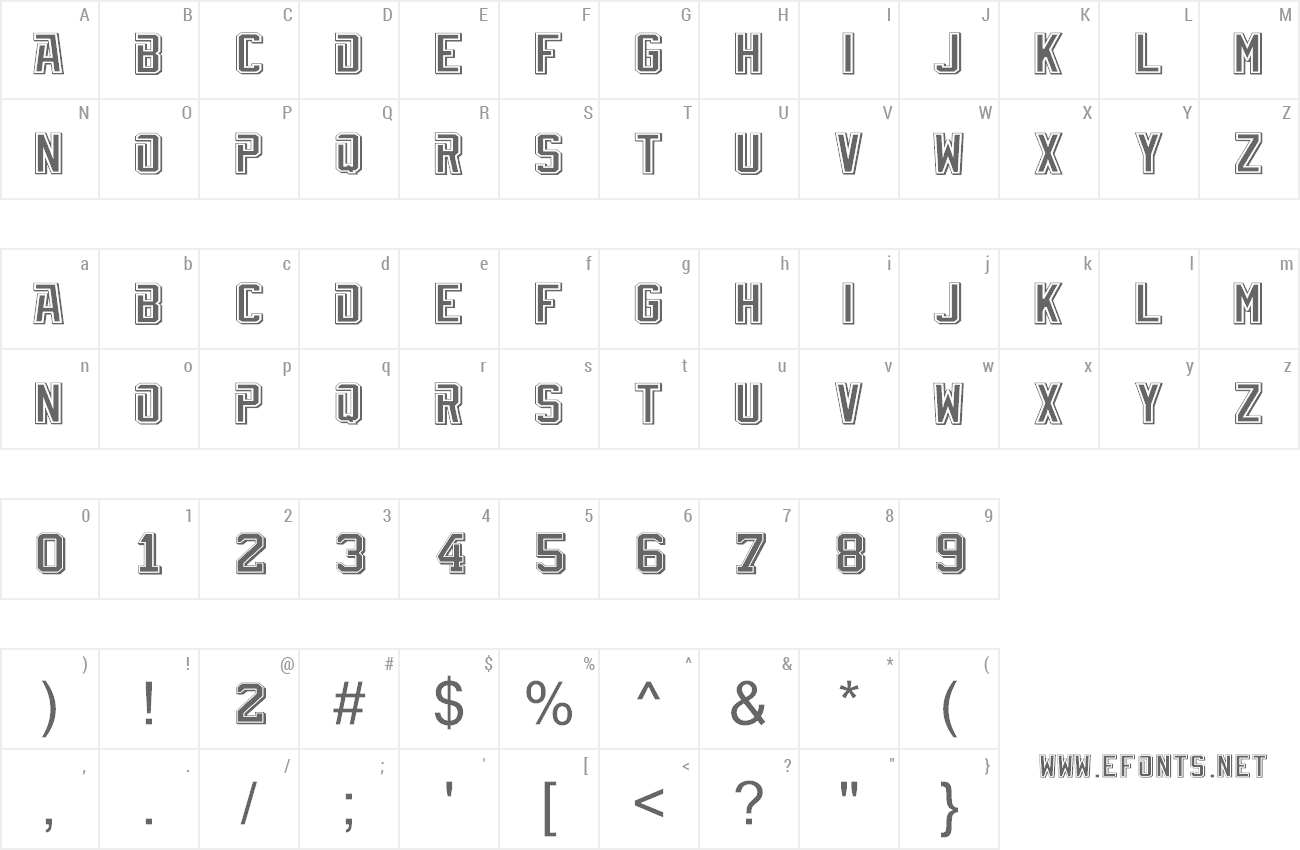
| Font name: | TBL Vintage |
| Author: | Ben Schmidt |
| Note by Ben Schmidt | |
| This font is a replication of the 1992 Tampa Bay Lightning uniform letters & numbers. It is very close! |